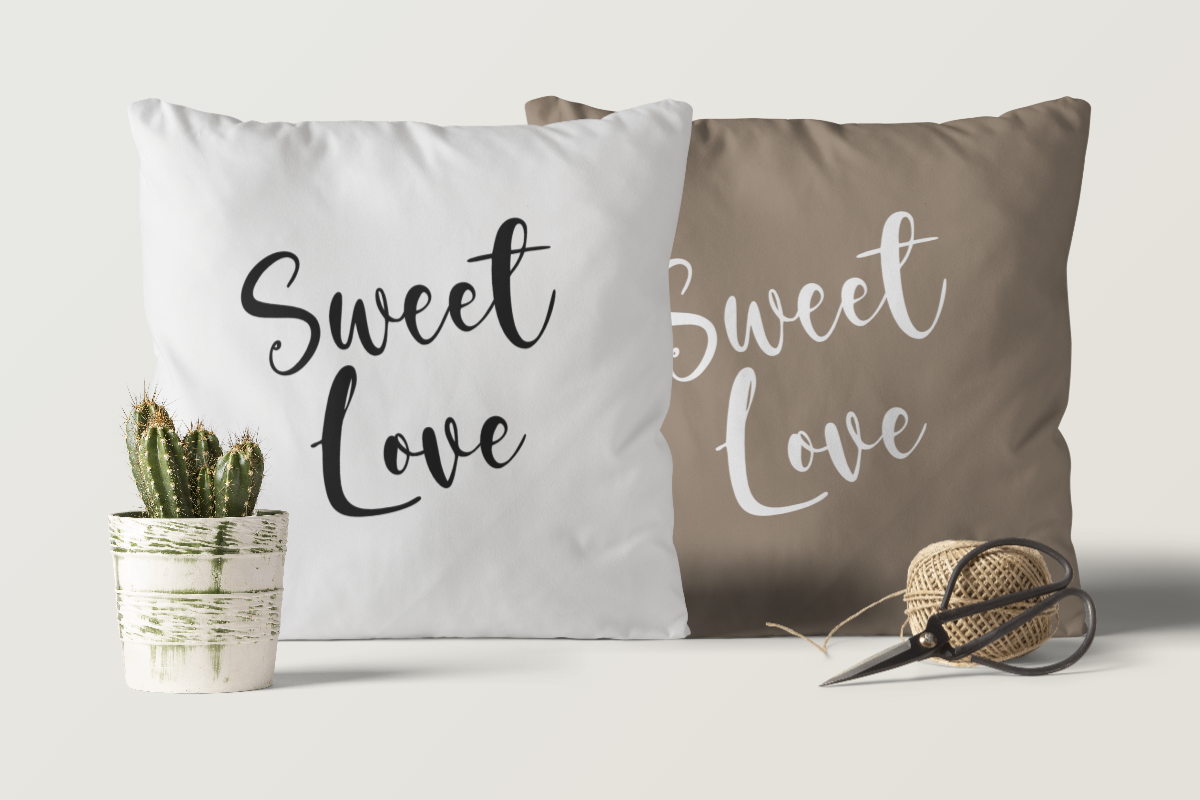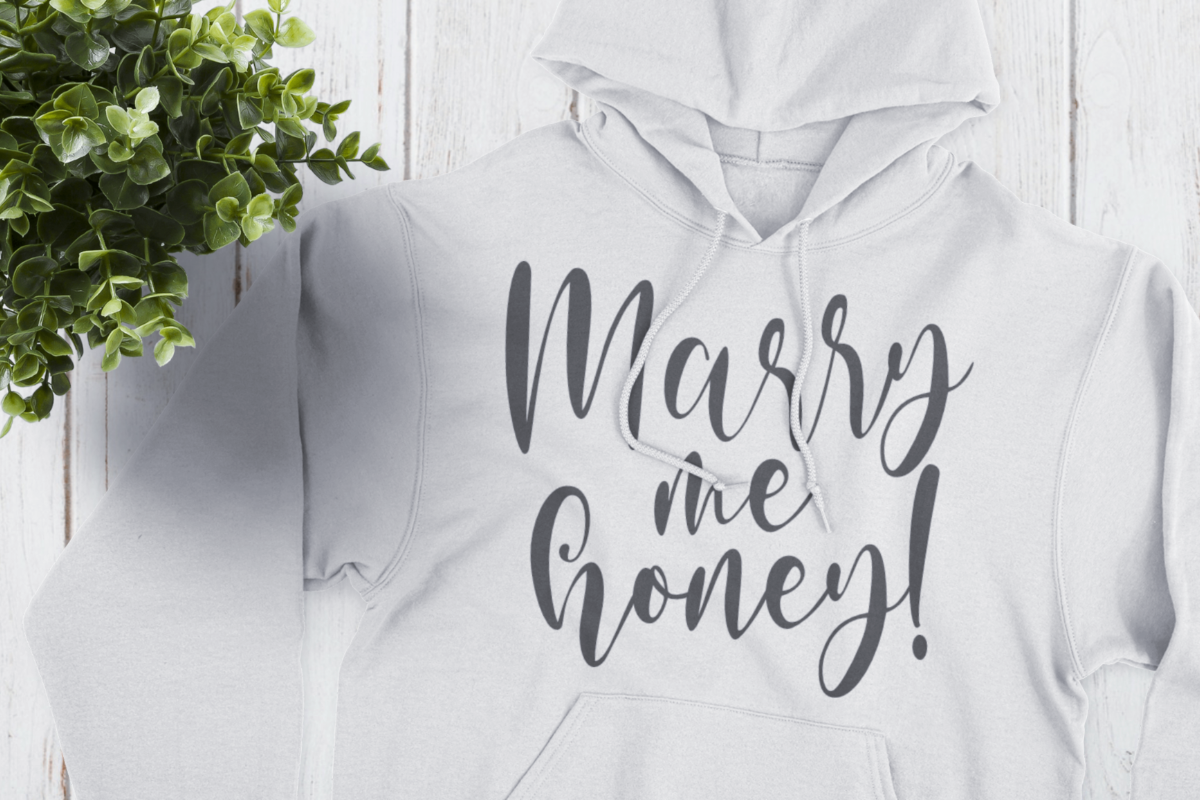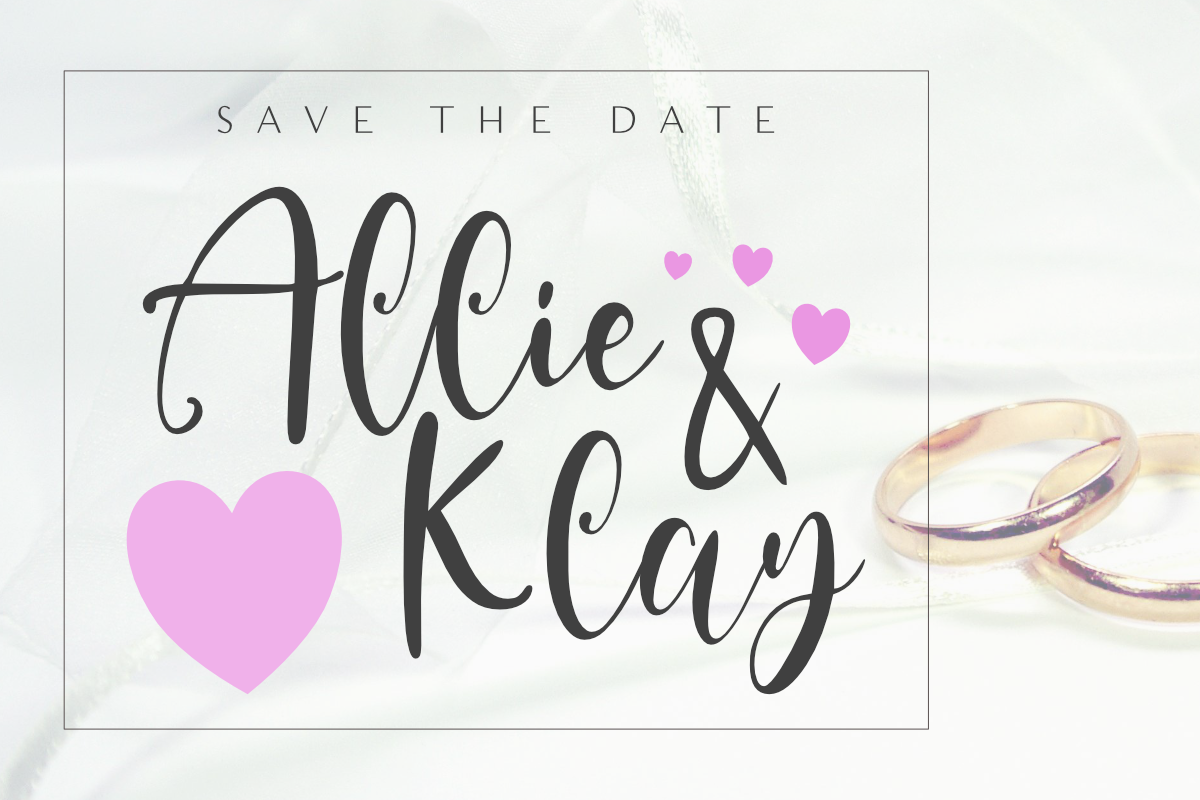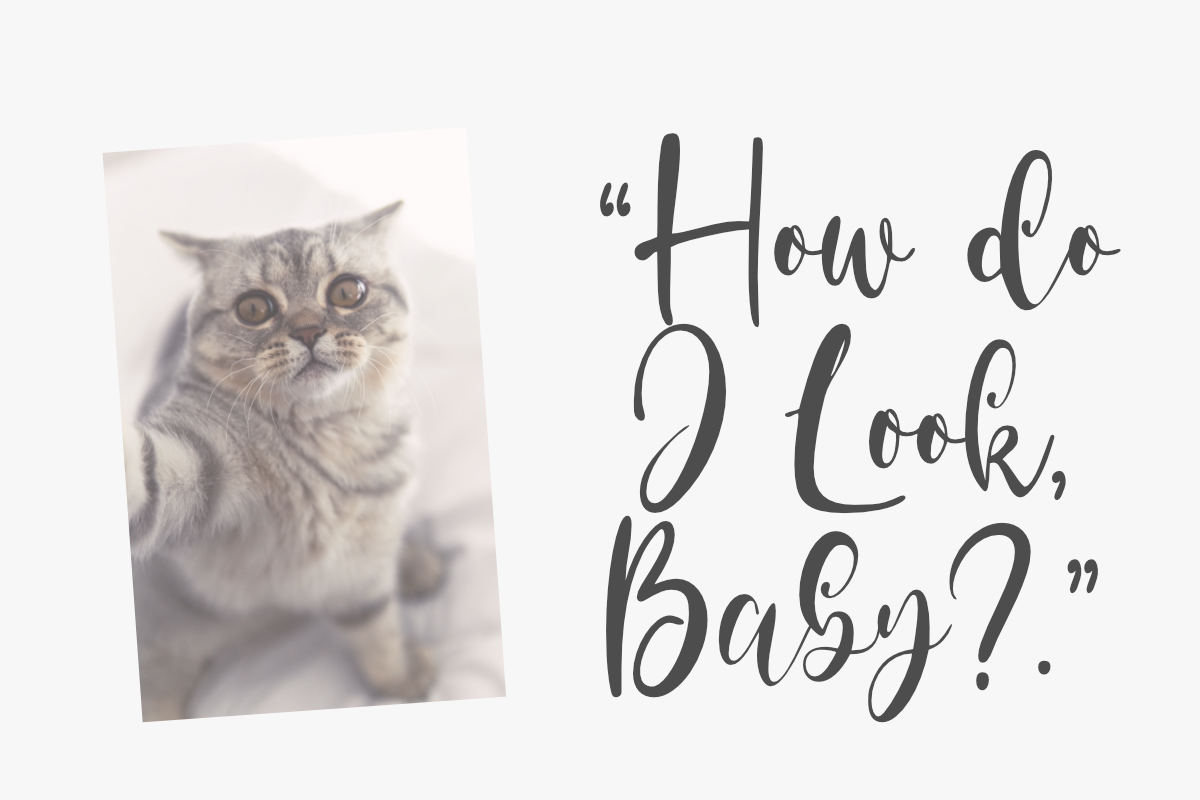
Cute Selfie
With its fun and playful style, Cute Selfie is perfect for all your creative projects! Whether you're creating invitations, birthday cards, or just looking for a font that adds a little bit of personality to your work, Cute Selfie is the right choice.